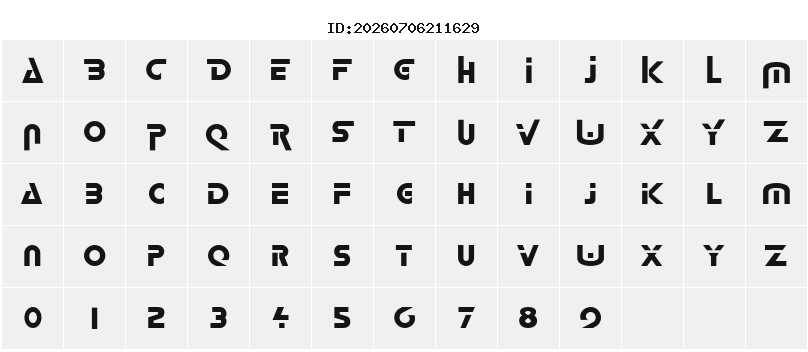
• Font Name: Delta
• Full Font Name: DeltaNormal
• PostScript Name: DeltaNormal
• Character Count: 216
About Delta.ttf
Delta.ttf is a modern, elegant sans-serif font designed for ultimate readability and visual harmony. Perfect for branding, headlines, web design, and print materials.